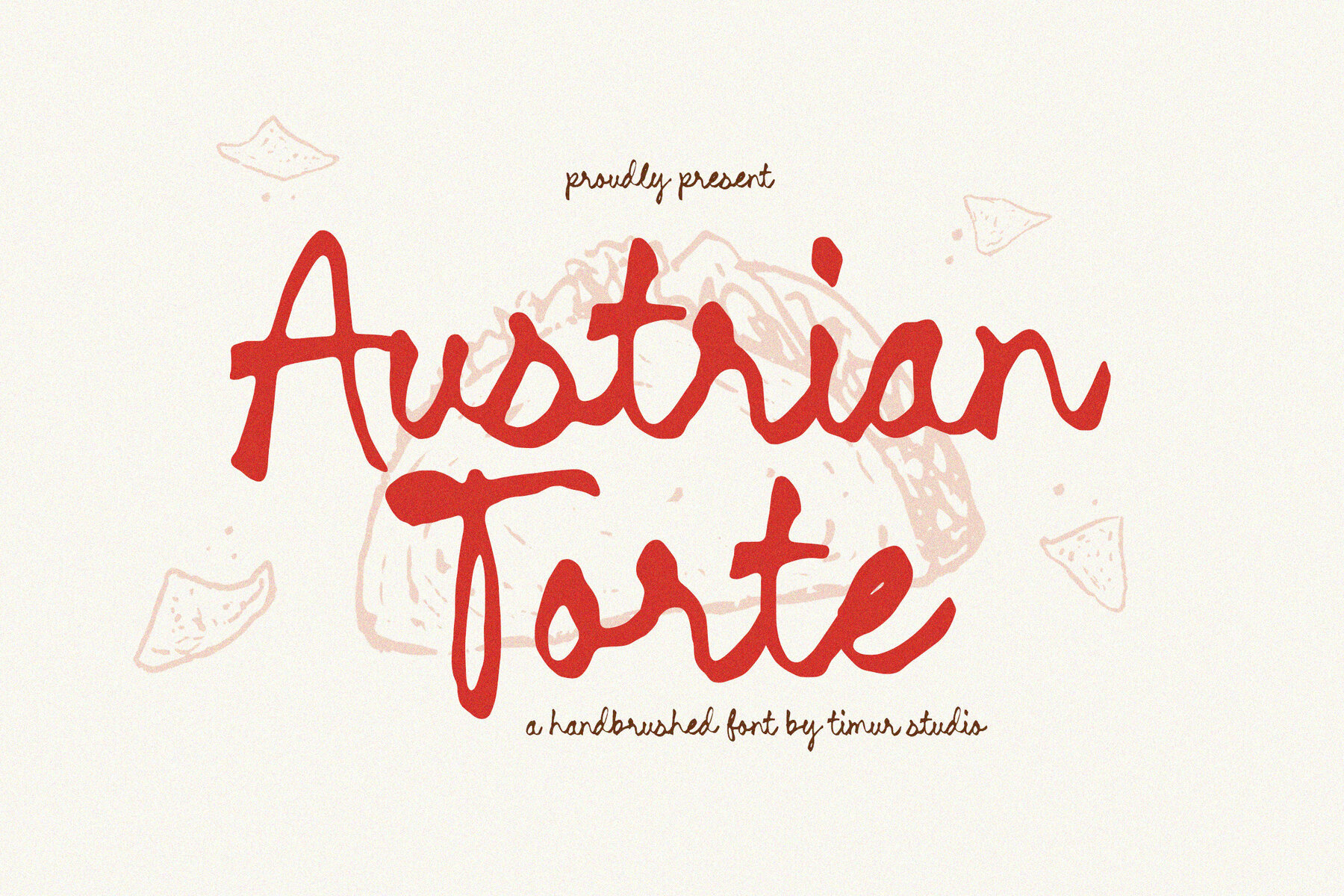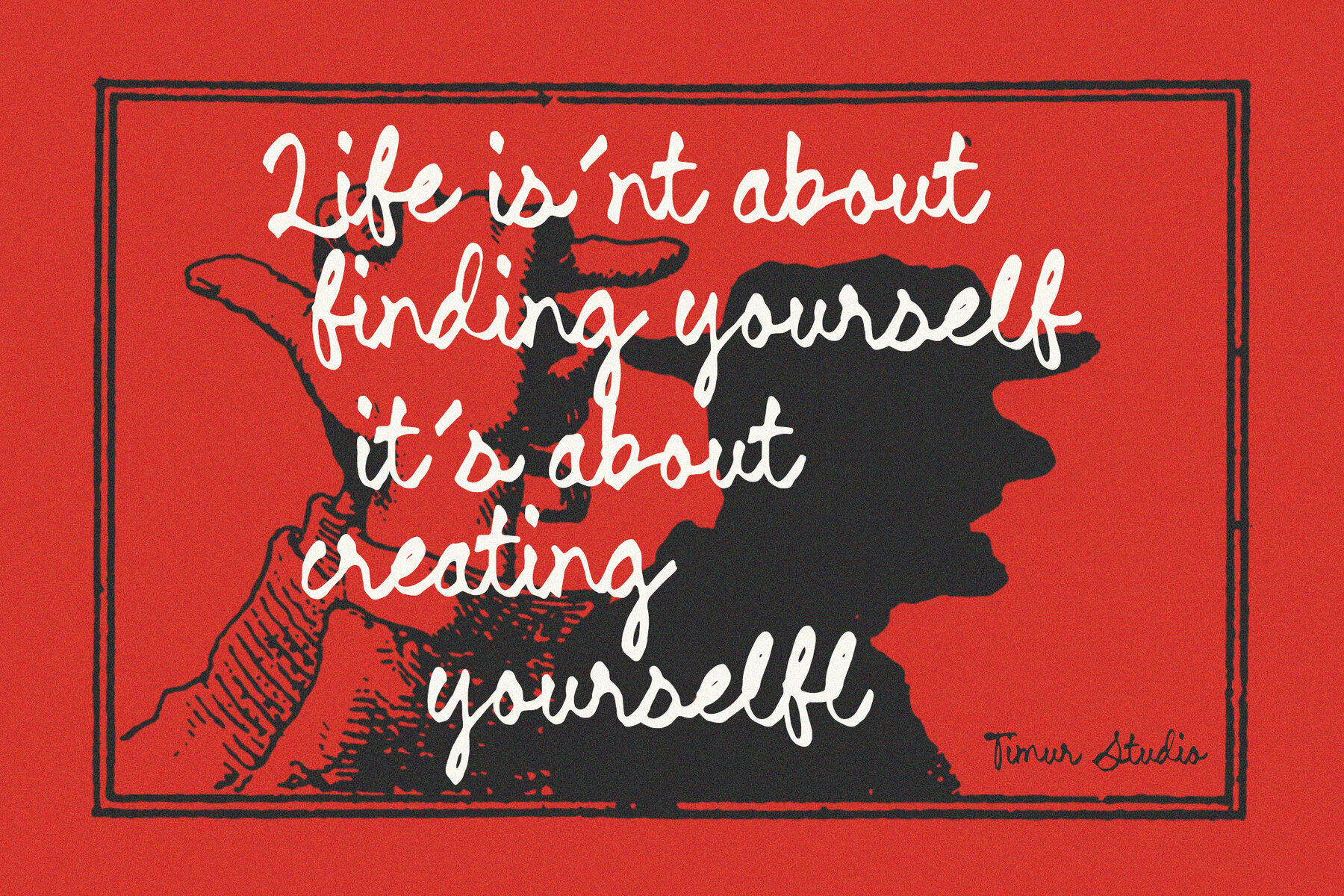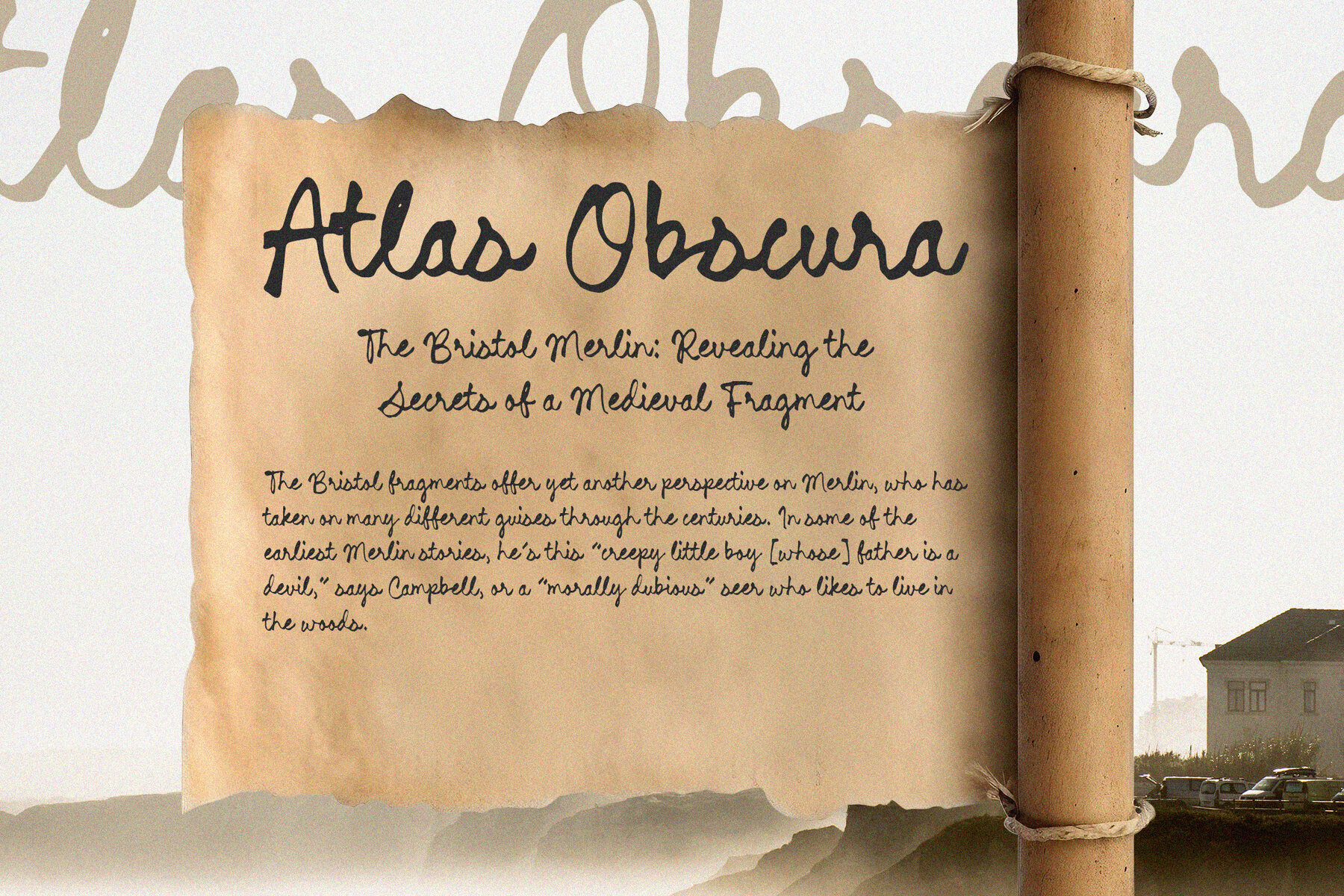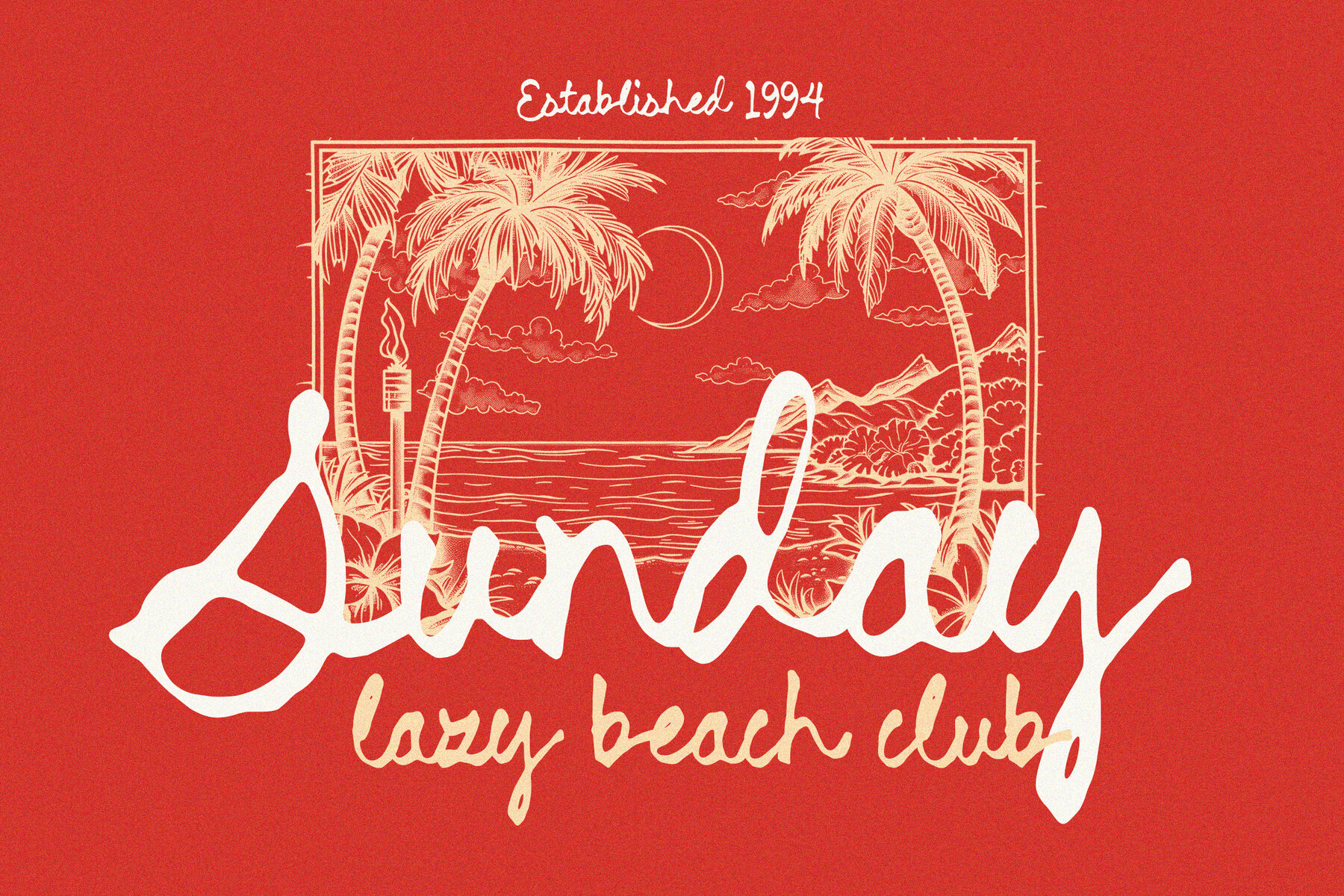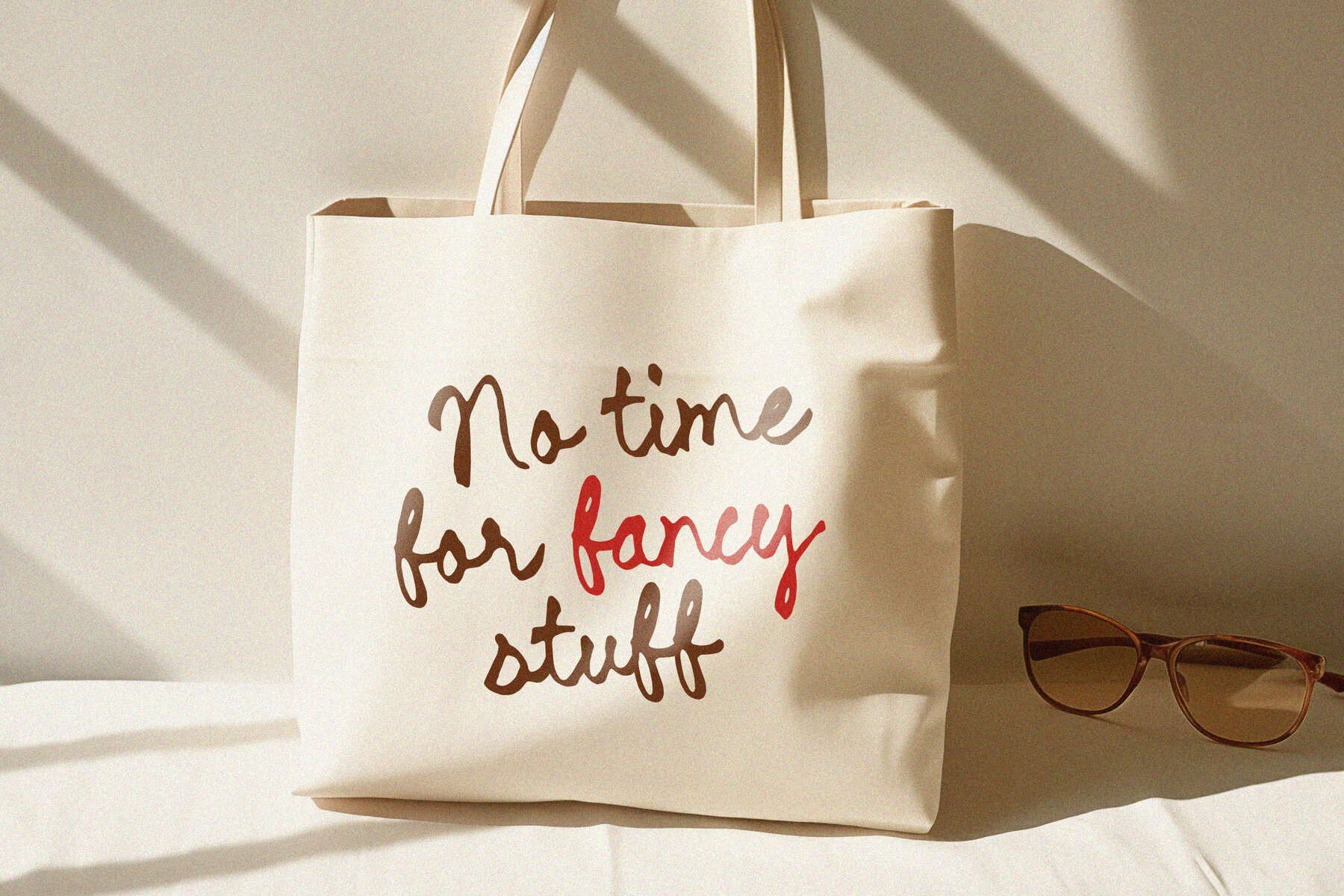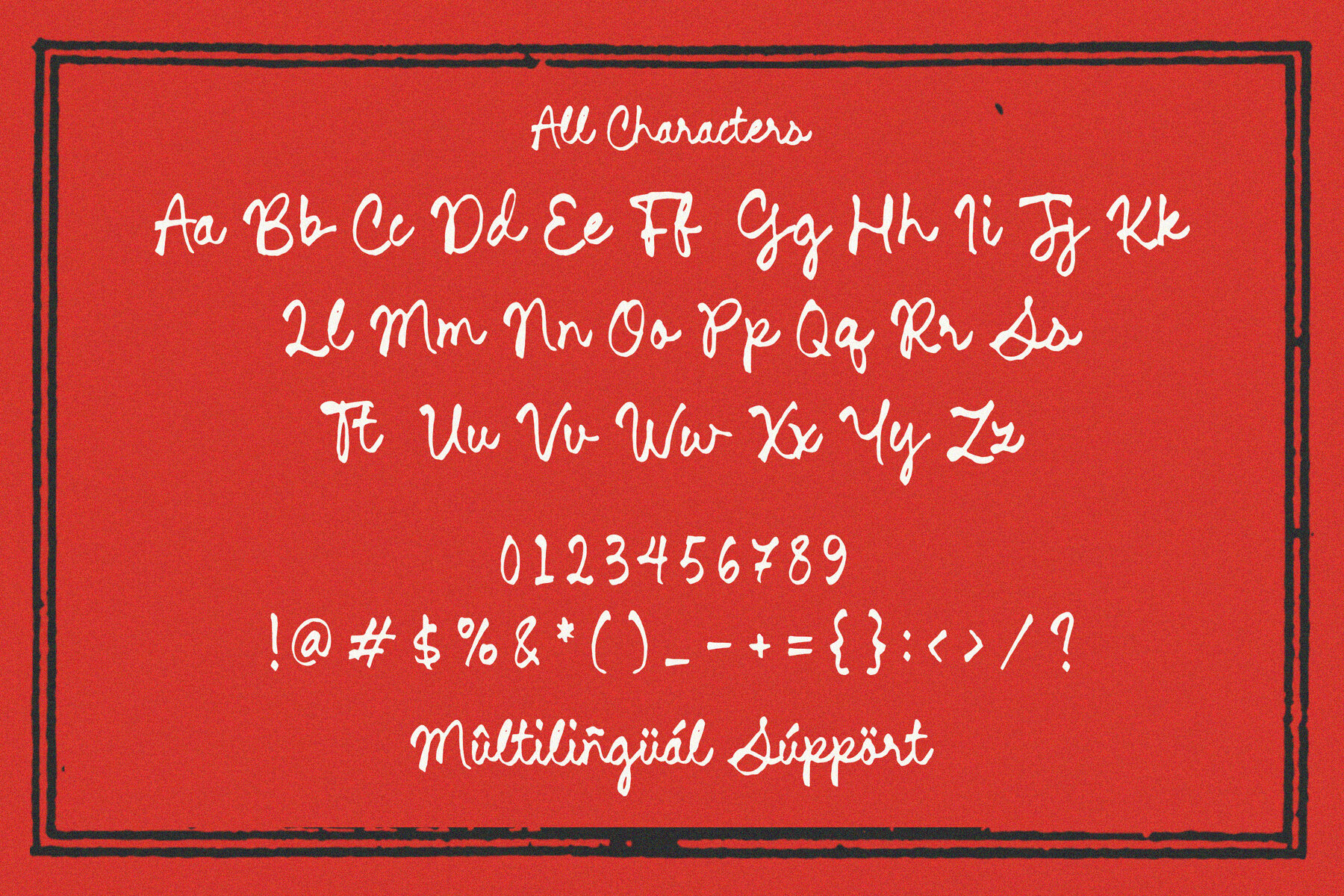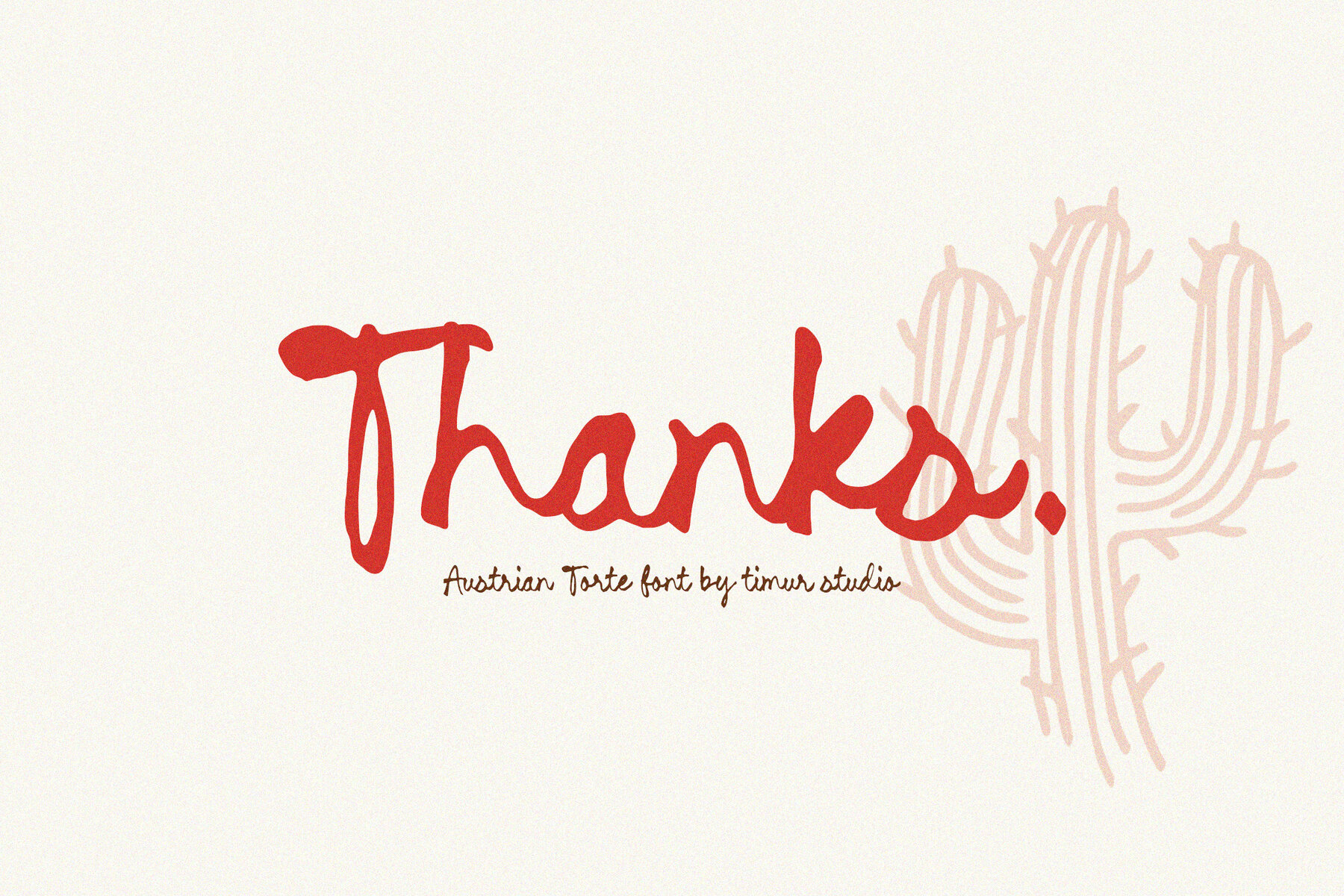
Austrian Torte Font
Austrian Torte
Discover the captivating charm of handbrushed artistry with this font. Its elegant, flowing strokes and gentle curves capture the essence of traditional Austrian craftsmanship, reminiscent of the art found in hand-painted signage. This typeface brings a sophisticated yet handmade appeal to any project. Whether you're designing menus, invitations, or branding materials, this font offers a perfect blend of sophistication and rustic charm, mirroring the intricate details seen in Viennese patisseries.
Perfect for enhancing your design projects with a touch of artisanal flair, this font is ideal for those seeking to convey elegance through subtle craftsmanship. Its design evokes the meticulous care of traditional baking, providing a unique storytelling element to your work. This typeface stands out as a beautiful choice for projects aiming to capture the delicate balance of tradition and creativity.